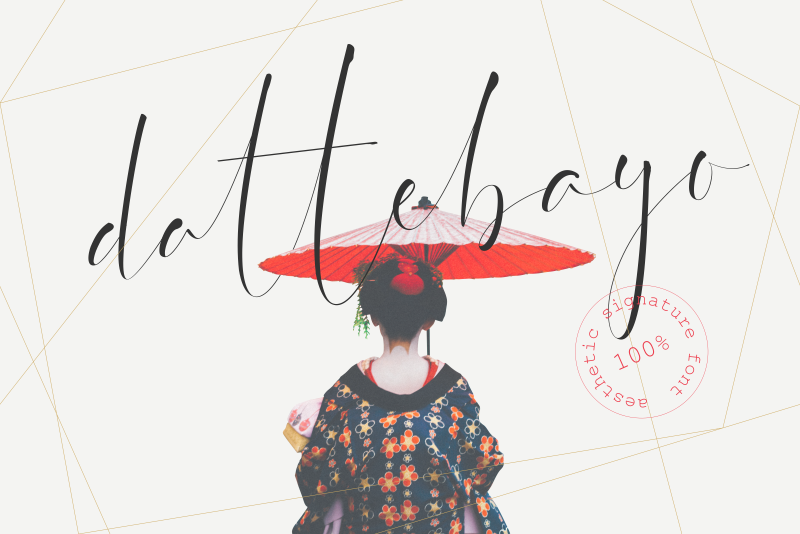
Preview and download Dattebayo Font. Created by Angga Mahardika in Script Calligraphy styles with 100% Free license.
dattebayo font is aesthetic signature style font. This free version is free both for commercial and personal purpose. free features : - 2 ligatures ( att and eb ) - multilingual support Donations are accepted via paypal https://www.paypal.me/gagavastard Unlock Following Features by Purchasing $7 premium font: - 864 Ligatures - 1100 Glyphs - Multilingual Support Extras : - 42 Logo Templates (.ai and .eps) - 4 Invitation Templates (.ai and .eps) - 27 Vector Elements (.ai and .eps) Premium Version can be download here: https://creativemarket.com/branding_as_hell/3059825-Dattebayo-Signature-61-off-Extras visit my store for more fonts https://creativemarket.com/branding_as_hell my social media link: https://www.facebook.com/gaga.vastard https://www.instagram.com/gagavastard/ |